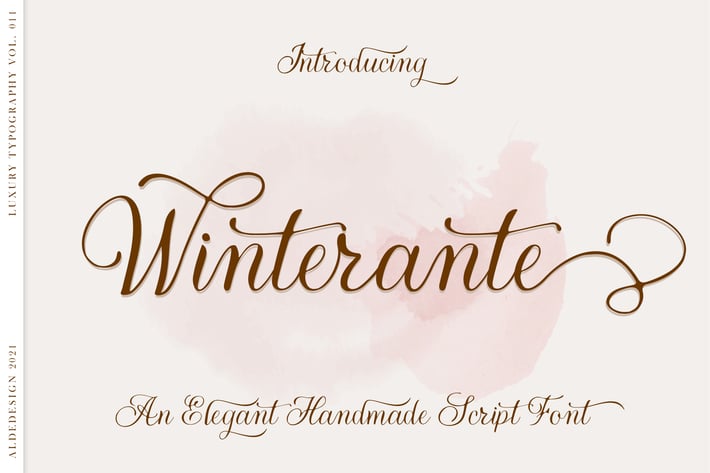
Winterante - Christmas Script Font
Winterante \\ Modern Script
Winterante is a delicate, elegant, and flowing handwritten font. is a stylish calligraphy font that features a varying baseline, smooth line, modern, and with a depth of love. For those of you who need a touch of love and modernity for your designs or branding, it can be used for various purposes such as headings, weddings, invitations, signatures, logos, branding, letterhead, signage, label, news, posters, badges, etc.
It has beautiful and well-balanced characters, and as a result, it matches a wide pool of designs.
Cardigan Christmas features a varying baseline, smooth lines, gorgeous glyphs, and stunning alternates. Add it to your most creative ideas and notice how it makes them come alive!
Stylish modern handwritten script
Beautiful Swash (Ending tail)
Beautiful Titling (Beginning tail)
Special Ligatures & Alternates
* Multilingual Support